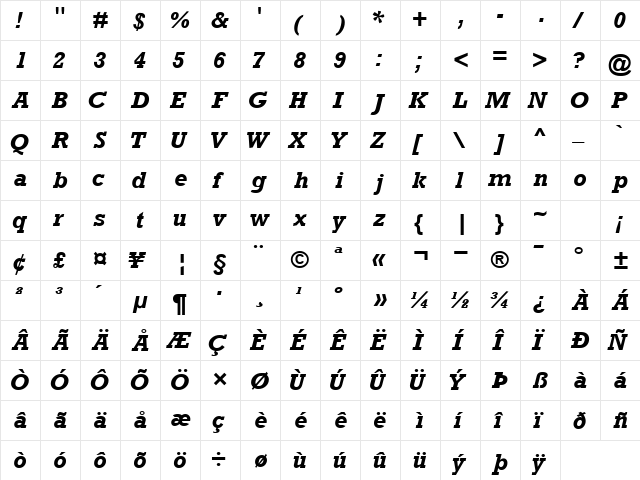
AstuteSSK Bold Italic Font Preview
AstuteSSK Bold Italic
AstuteSSK Bold Italic Font Details
Design Context for AstuteSSK Typeface
AstuteSSK is a composed and adaptable typeface that performs quietly and consistently across a wide range of design contexts. The slanted form adds forward momentum and visual energy. The heavy weight commands attention and anchors typographic hierarchies.
Pro Tip: Use AstuteSSK for emphasis, pull quotes, and subheadings where its slanted energy can add rhythm to the layout.